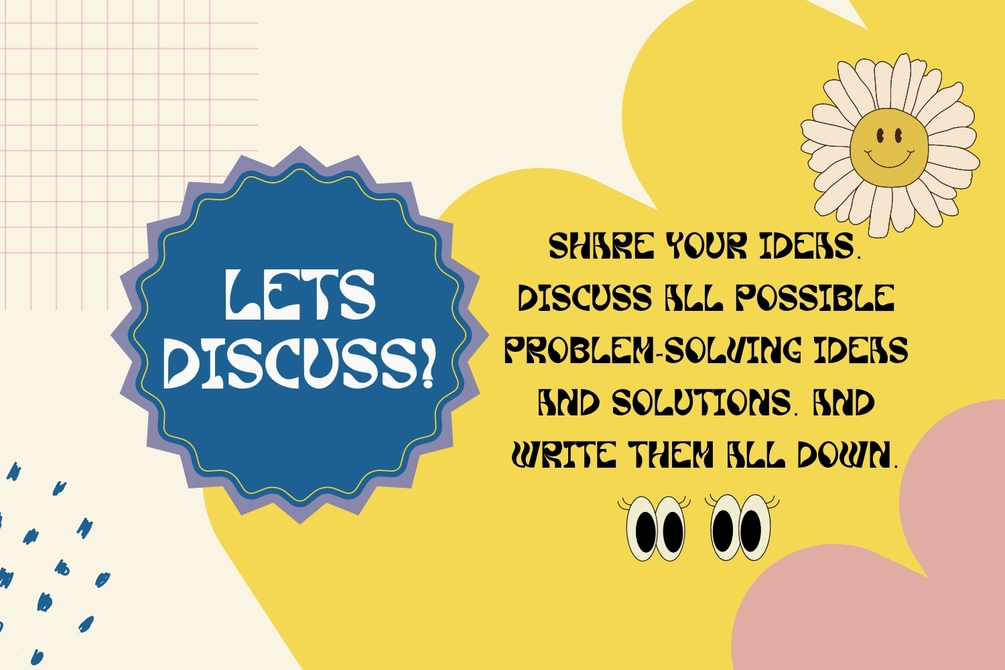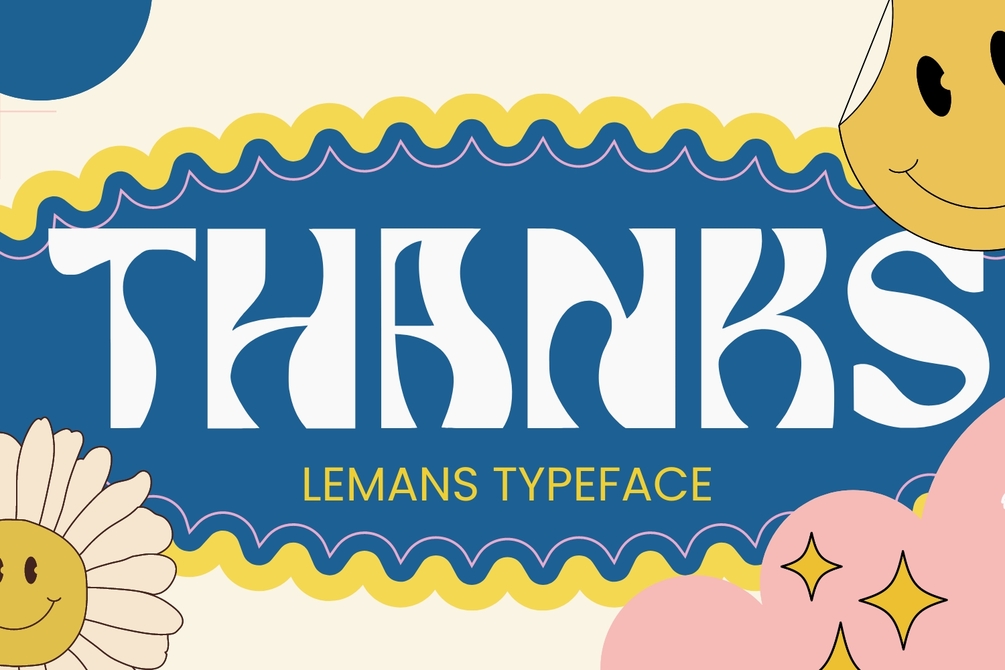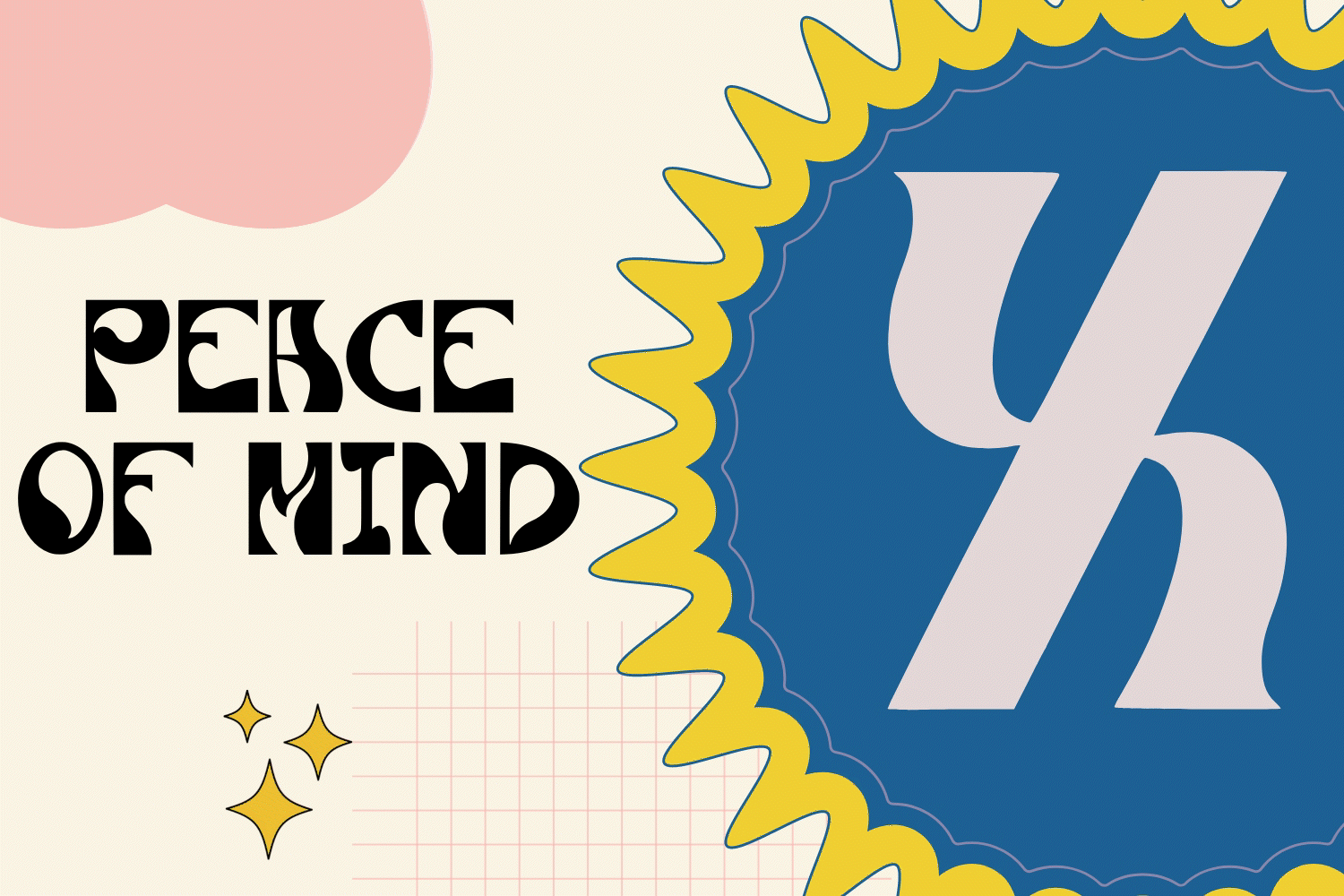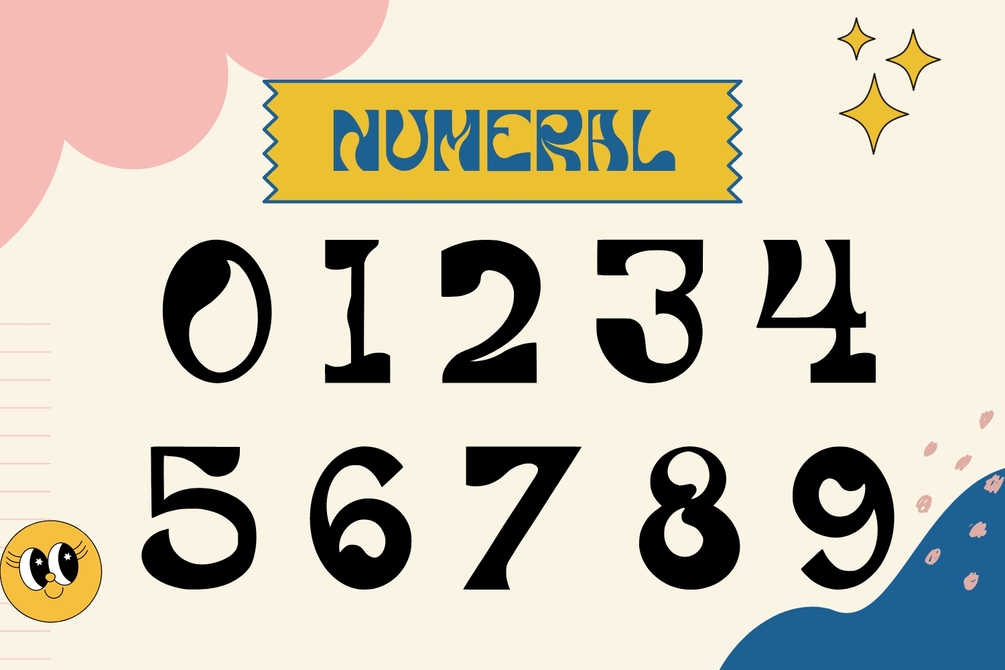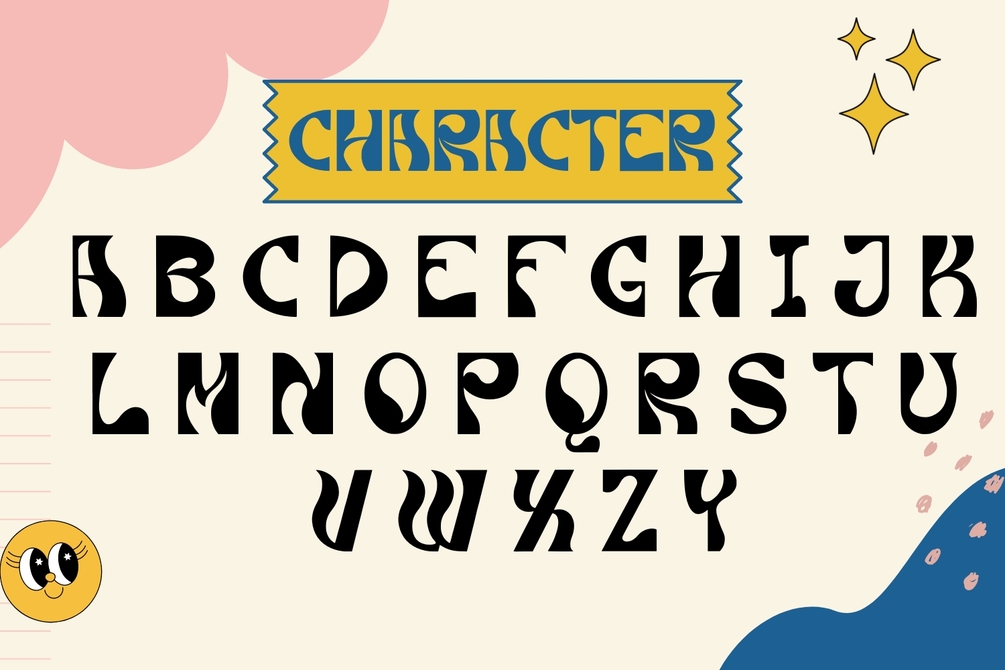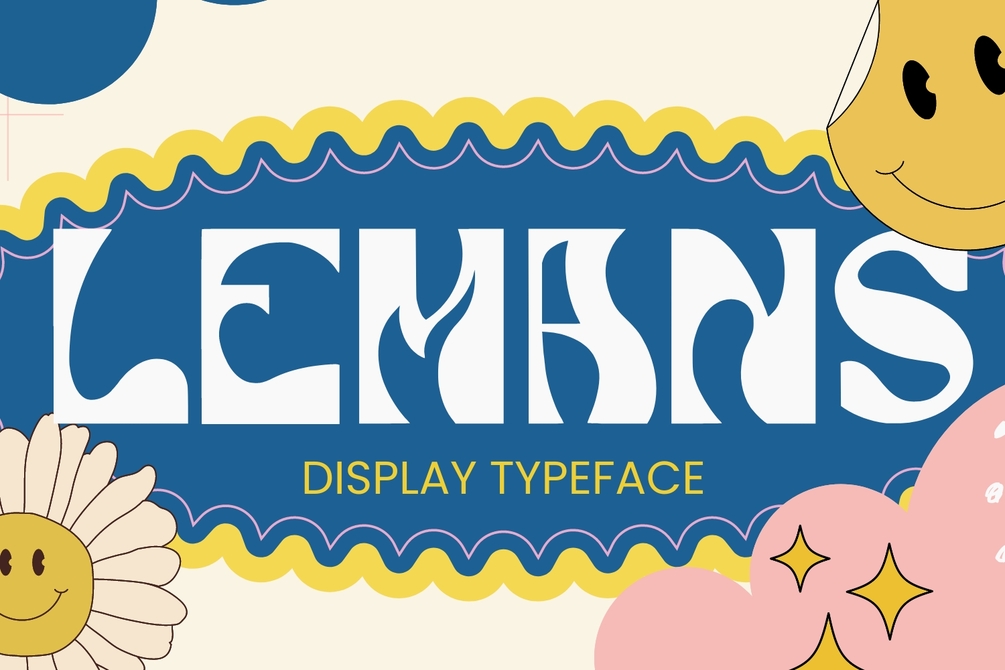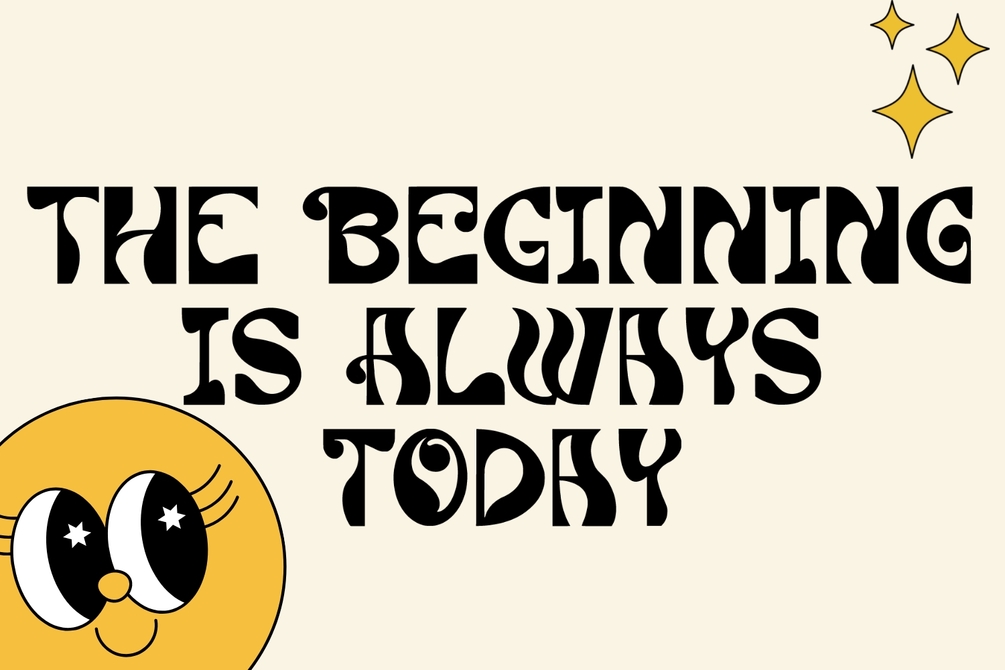
Lemans - Display Typeface
Lemans is a versatile, bold and unique serif font. Combination between high contrast and Brutalism style, Lemans has a unique style with stylistic, alternates, ligatures and supports multilingual languages.